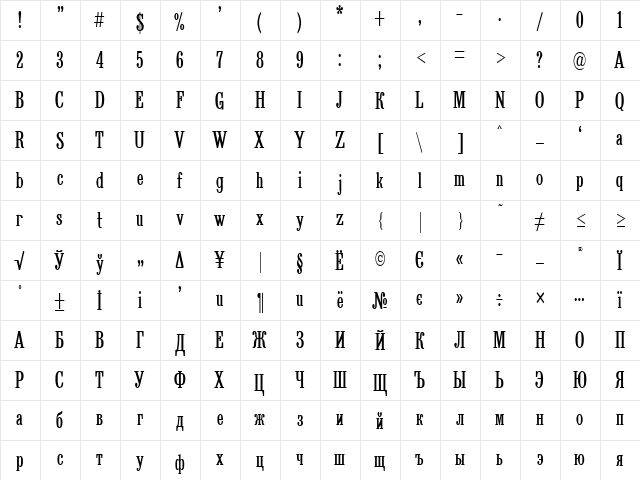
Uk_BruskovayaCompressed Normal Font Preview
Uk_BruskovayaCompressed Normal
Design Context for Uk_BruskovayaCompressed Typeface
Uk_BruskovayaCompressed takes a measured approach to typography — its balanced proportions and neutral character make it a reliable workhorse for both digital and print work.